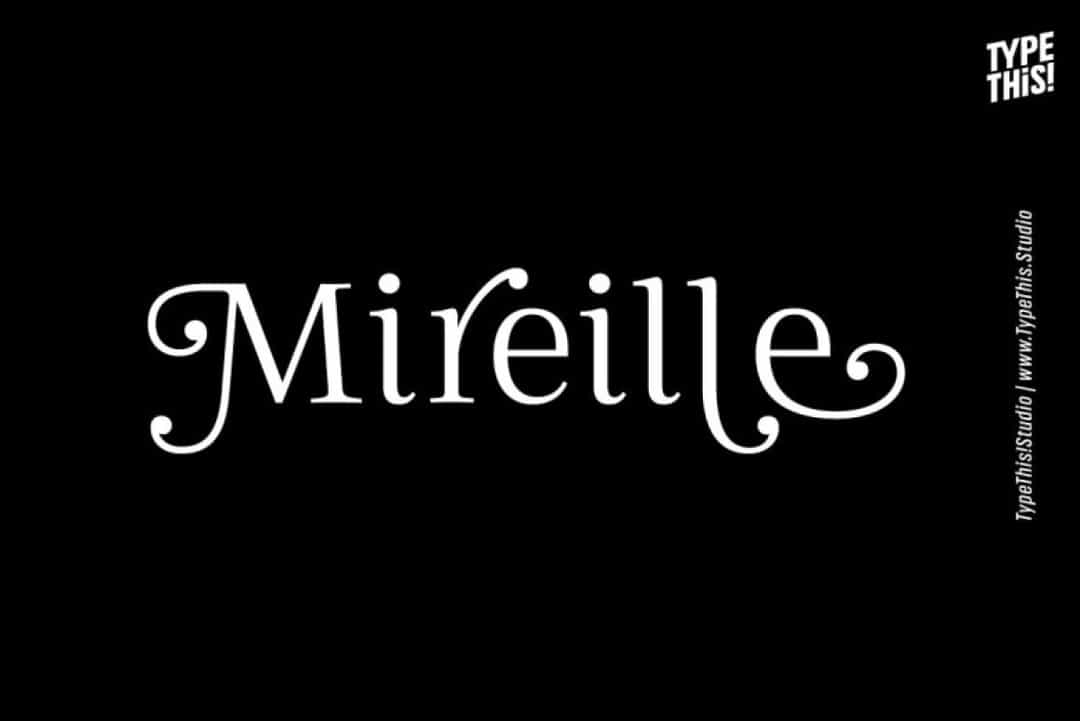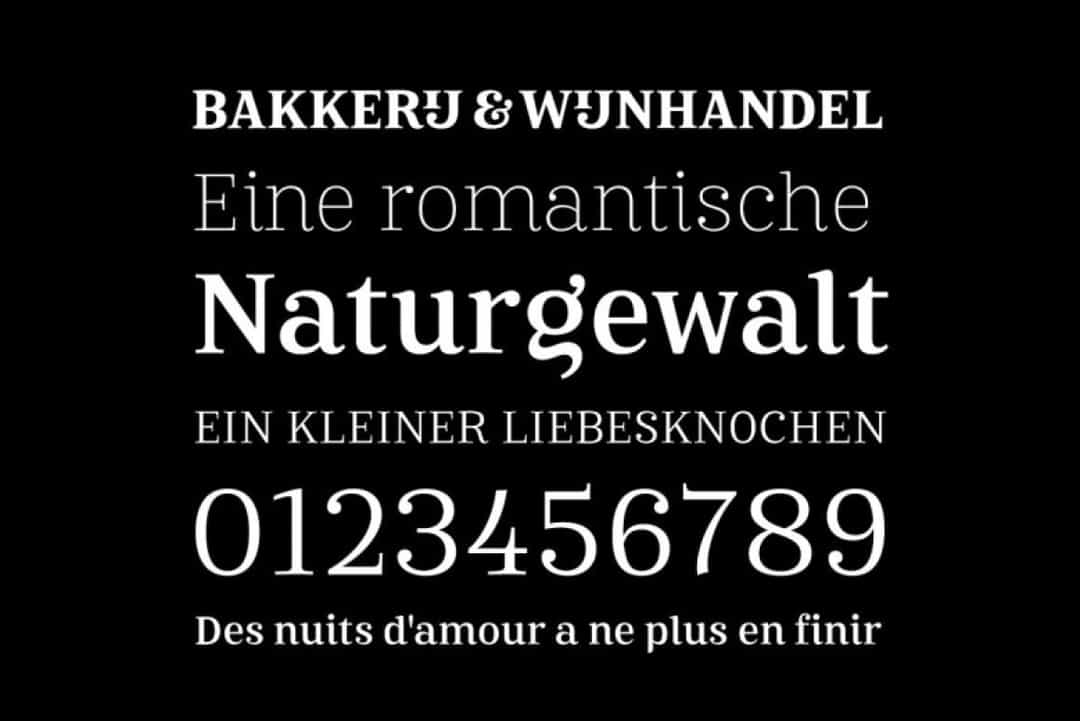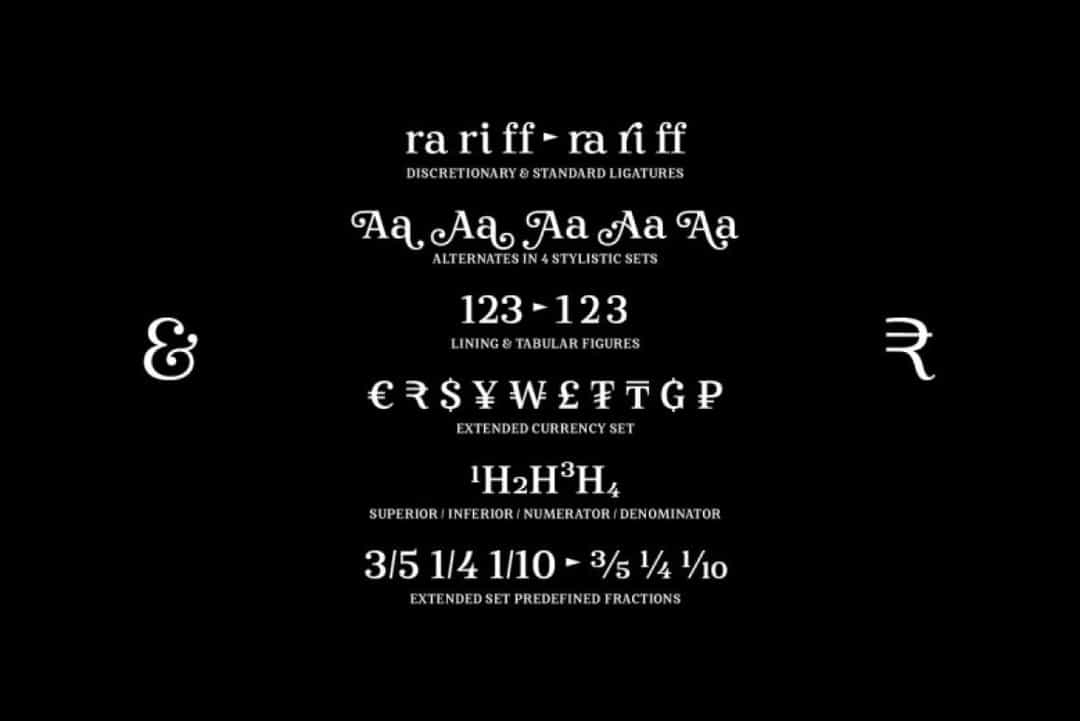
Mireille Font Family
Mireille is a graphic homage to French culture, with over 100 romantic ligatures and alternative words available to create stunning typographies. Your journey through delicious food as well as opera, classical music and wine tours awaits with Mireille!